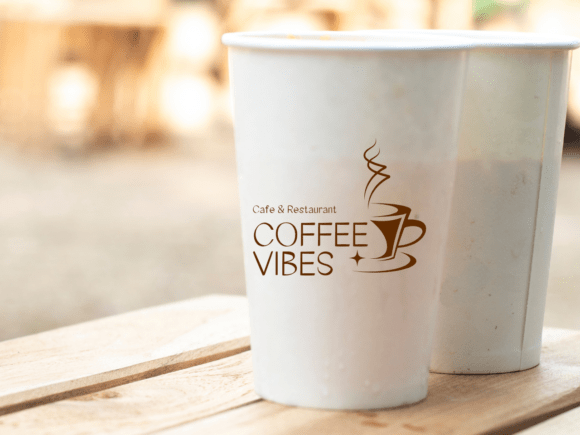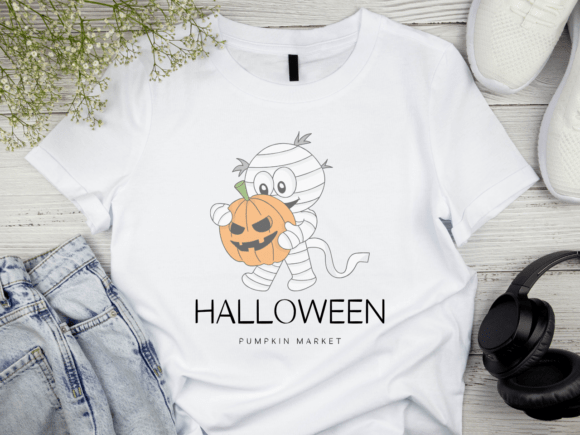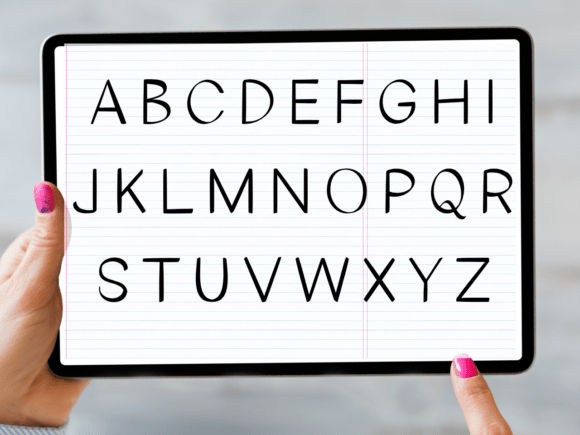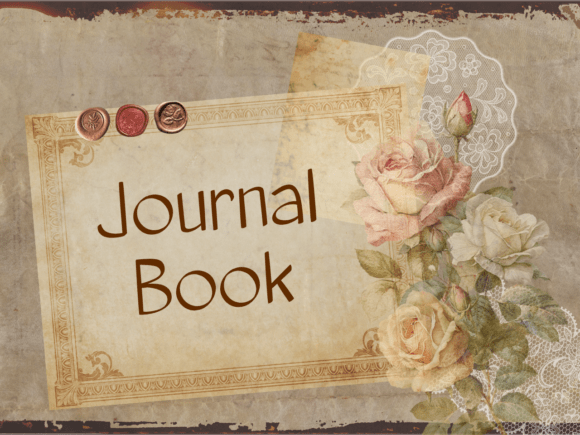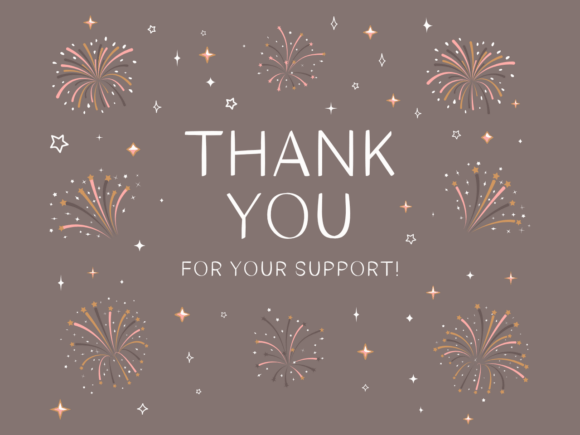
Introduction to Pace Font
Pace is a minimalist sans-serif font with a clean and elegant structure.
Its refined curves and subtle variations make it ideal for modern branding, fashion labels, editorial layouts, and premium packaging With a slightly quirky touch, it balances sophistication with individualityโ€”perfect for projects that want to feel stylish yet approachable.